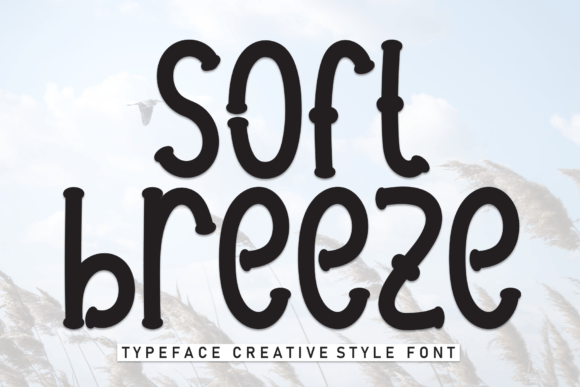
Dive into a world of timeless charm with Soft Breeze Font, a handcrafted display font that oozes warmth and elegance. Its delicate curves and playful spirit make it the perfect choice for adding a touch of whimsy to your creative projects.
Step into a bygone era with Soft Breeze, where vintage charm meets modern flair. Let your designs exude nostalgia with this font's intricate details and captivating character. Picture your wedding invitations, greeting cards, or social media posts adorned with Soft Breeze's enchanting aura.
Unleash your creativity and let Soft Breeze take you on a nostalgic journey. Its versatility knows no bounds, seamlessly adapting to various design styles and themes. From whimsical logos and branding to eye-catching posters and flyers, Soft Breeze adds a touch of magic to every project.
With Soft Breeze, you'll evoke a sense of warmth and nostalgia that resonates with your audience. Its charming personality transforms ordinary designs into captivating masterpieces, leaving a lasting impression.